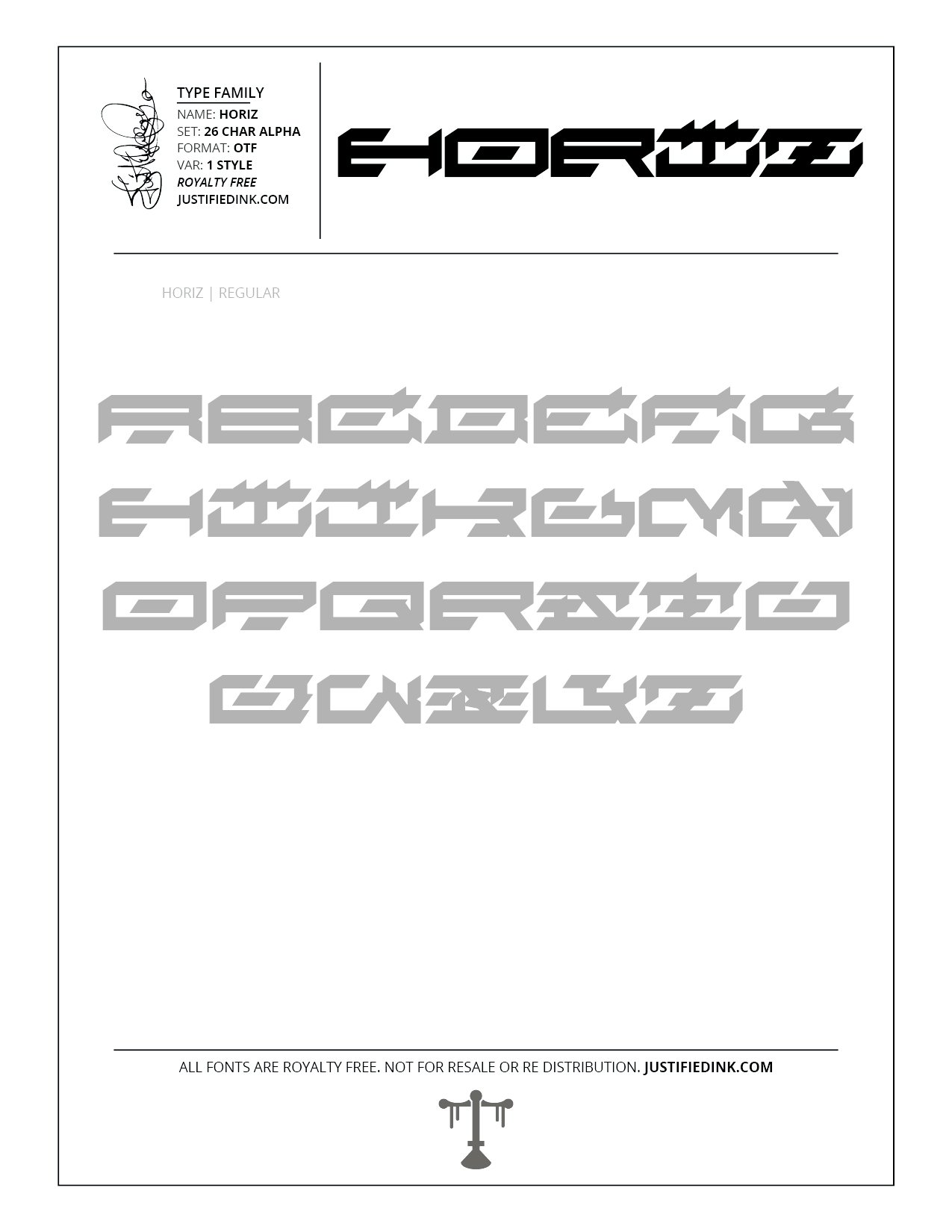
Horiz (1 style) - Custom Font by Justified Ink
NAME: Horiz
Everything is done on the down low with Horiz. Keep it short and get it done with this bold future style.
This font is part of the collection by Justified Ink, called Blackletter II. After 15+ years creating, I began to focus on building personal libraries of my work. The Blackletter II Collection was created through writing page after page, and countless hours over a 2 year span of daily practice. Each font from this collection has been hand drawn, manually vectored, and custom set as a type-able font. It comes in a full set of 26 char alpha. Each font family has variations in styles and/or non-alpha chars.